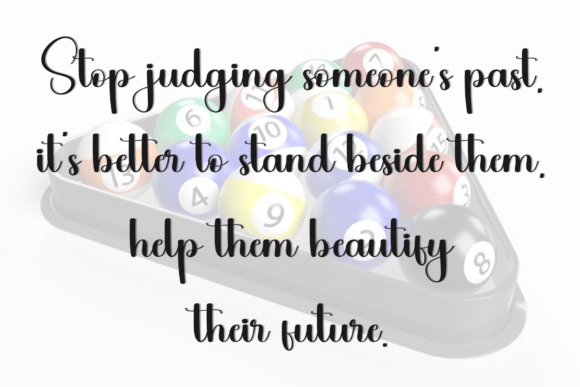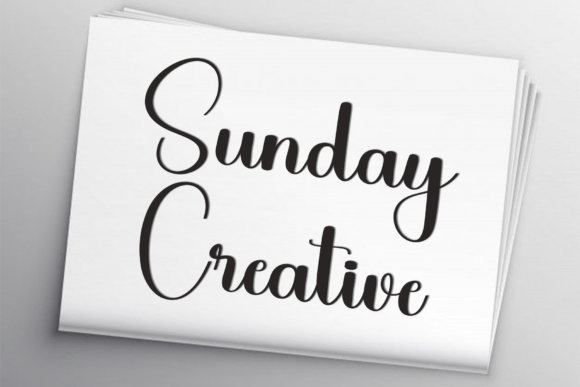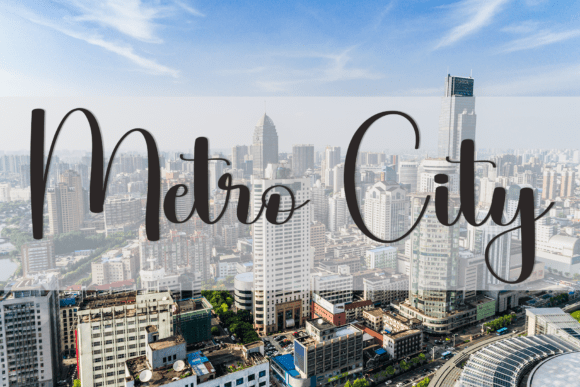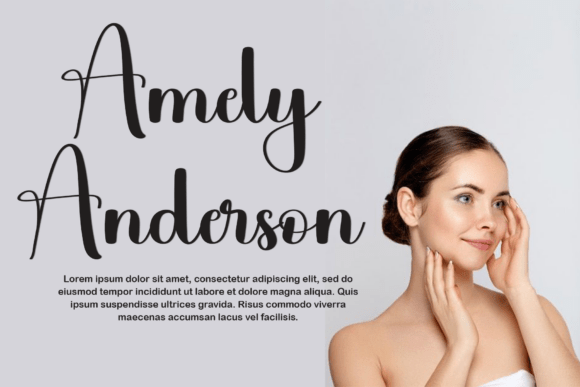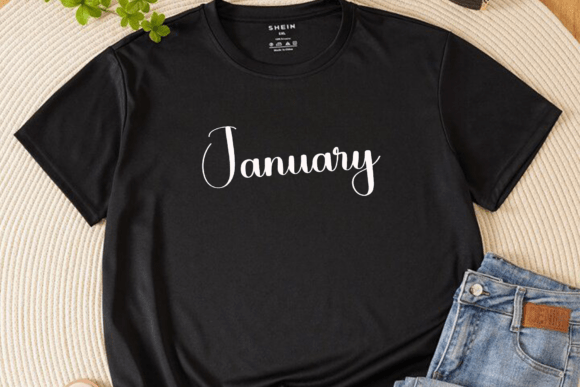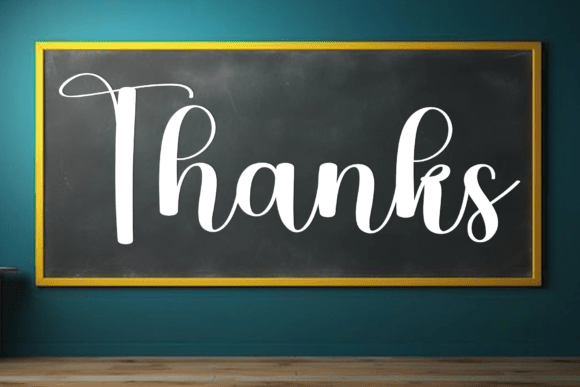
Introduction to Letter Packing Font
The Letter Packing font offers a smart and uniquely styled approach to the handwritten typeface category.
Distinguished by its narrow, tall proportions and elegant, continuous strokes, this Letter Packing font provides a clean yet deeply personal aesthetic It manages to be both charmingly informal and surprisingly sophisticated, bridging the gap between casual script and professional display lettering.
Key Features of Letter Packing Font